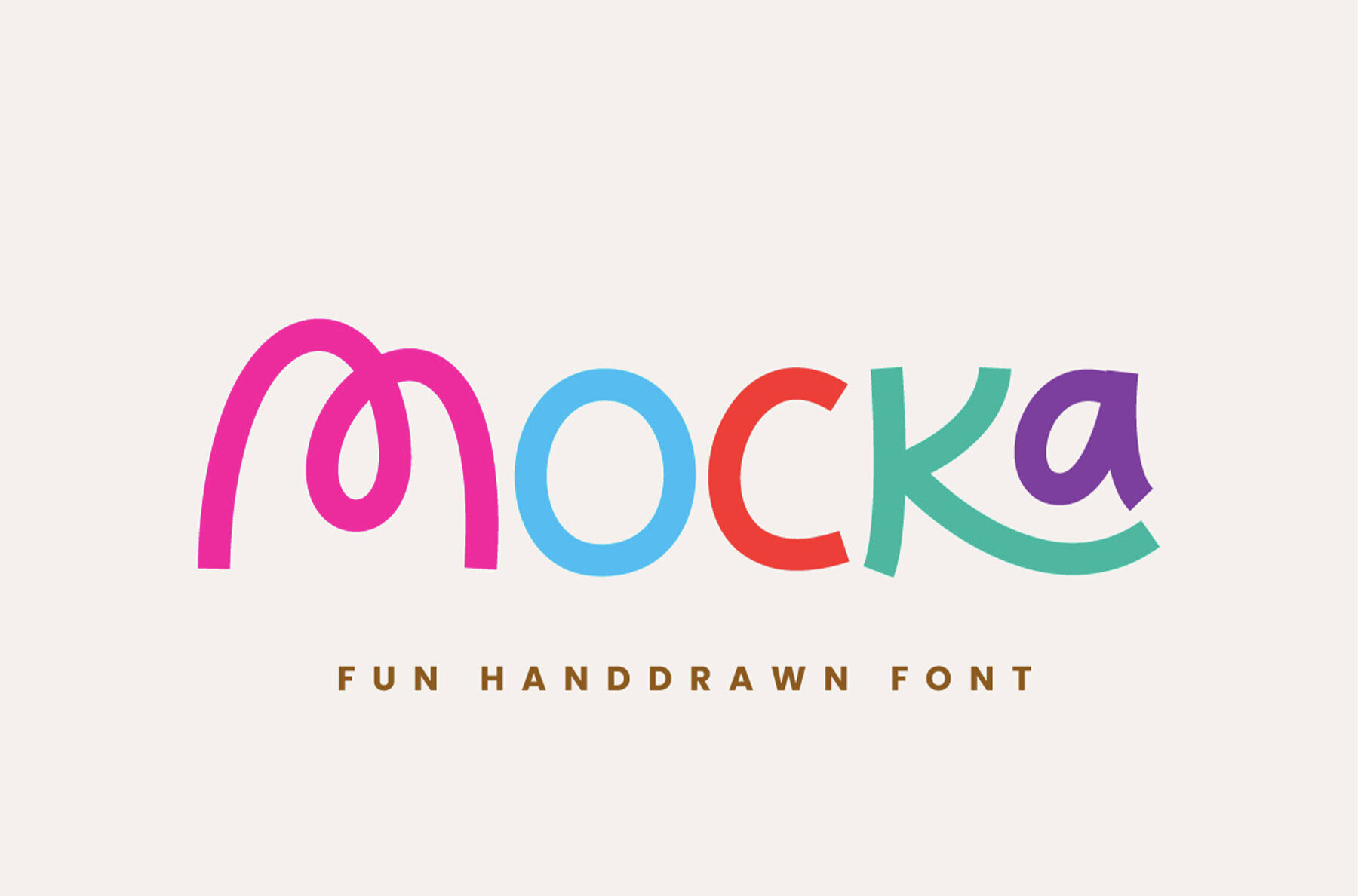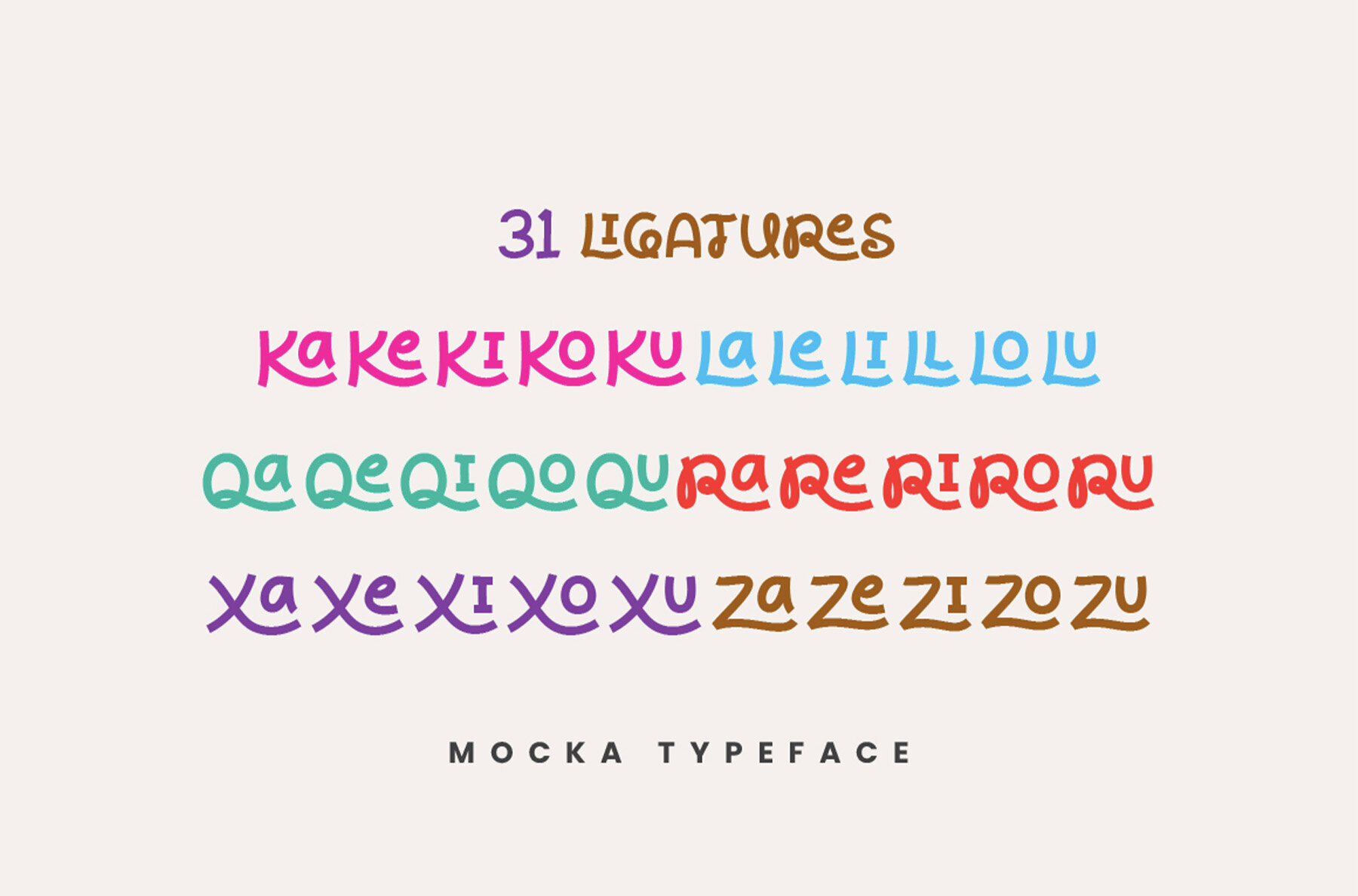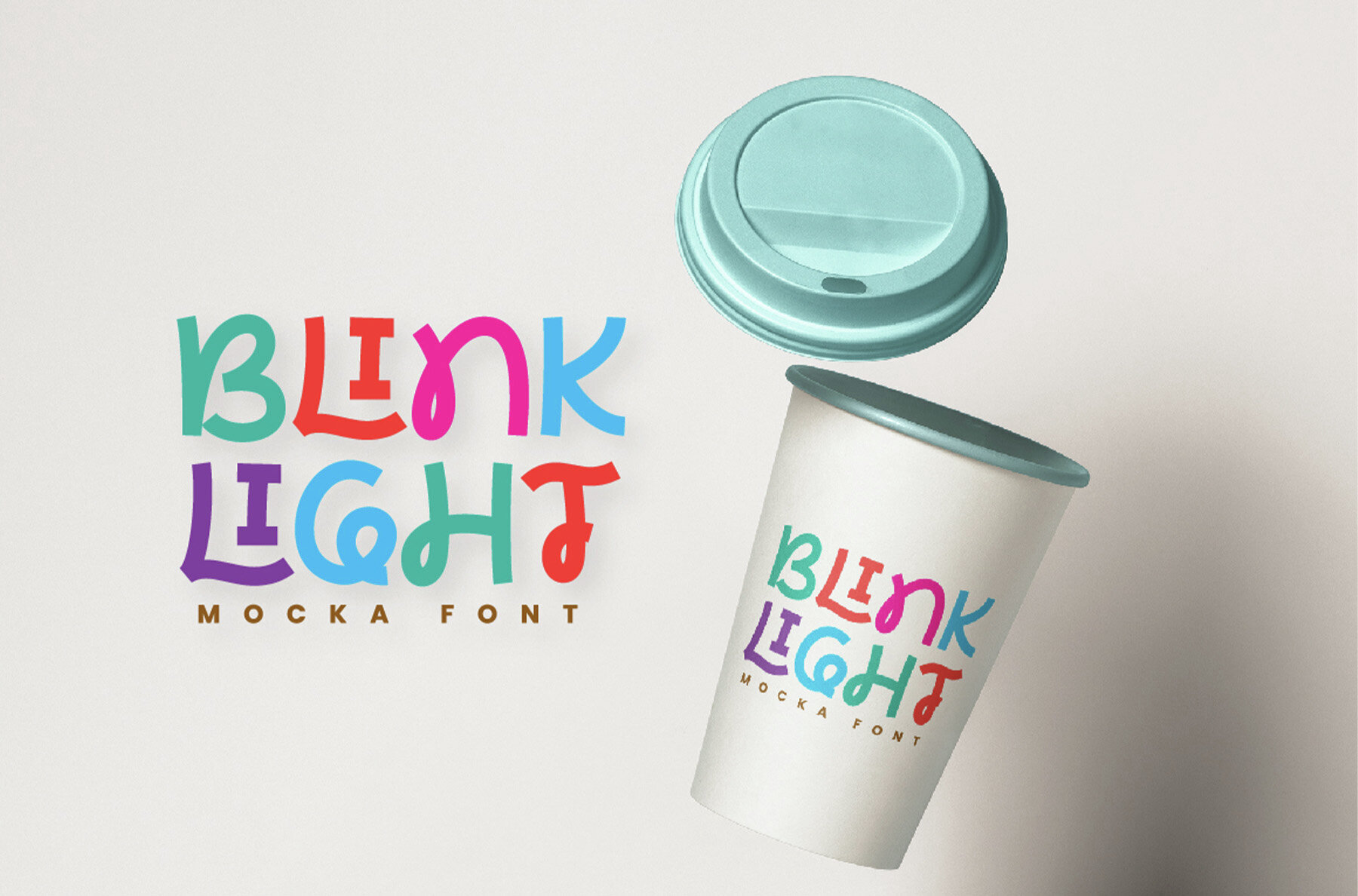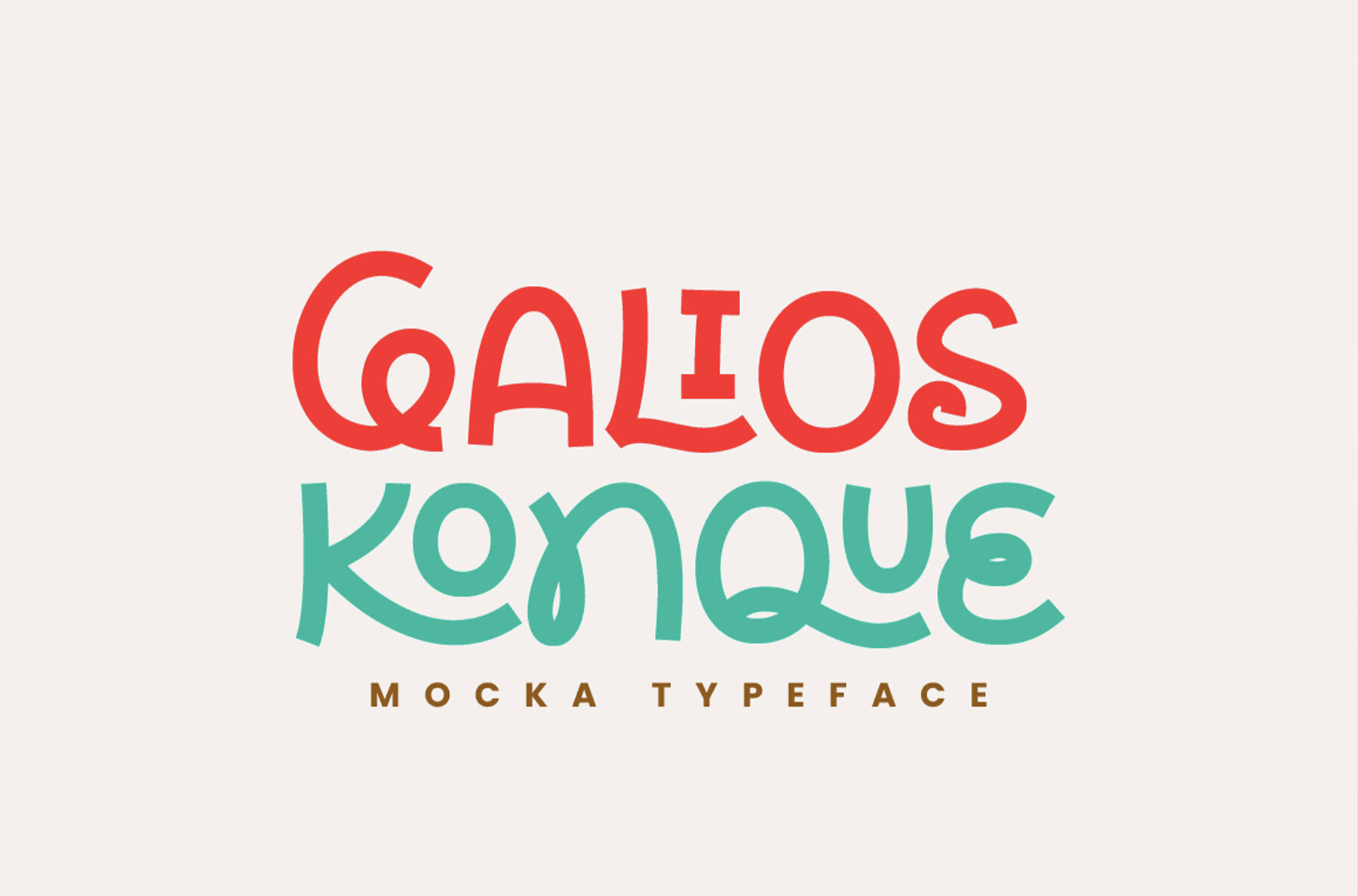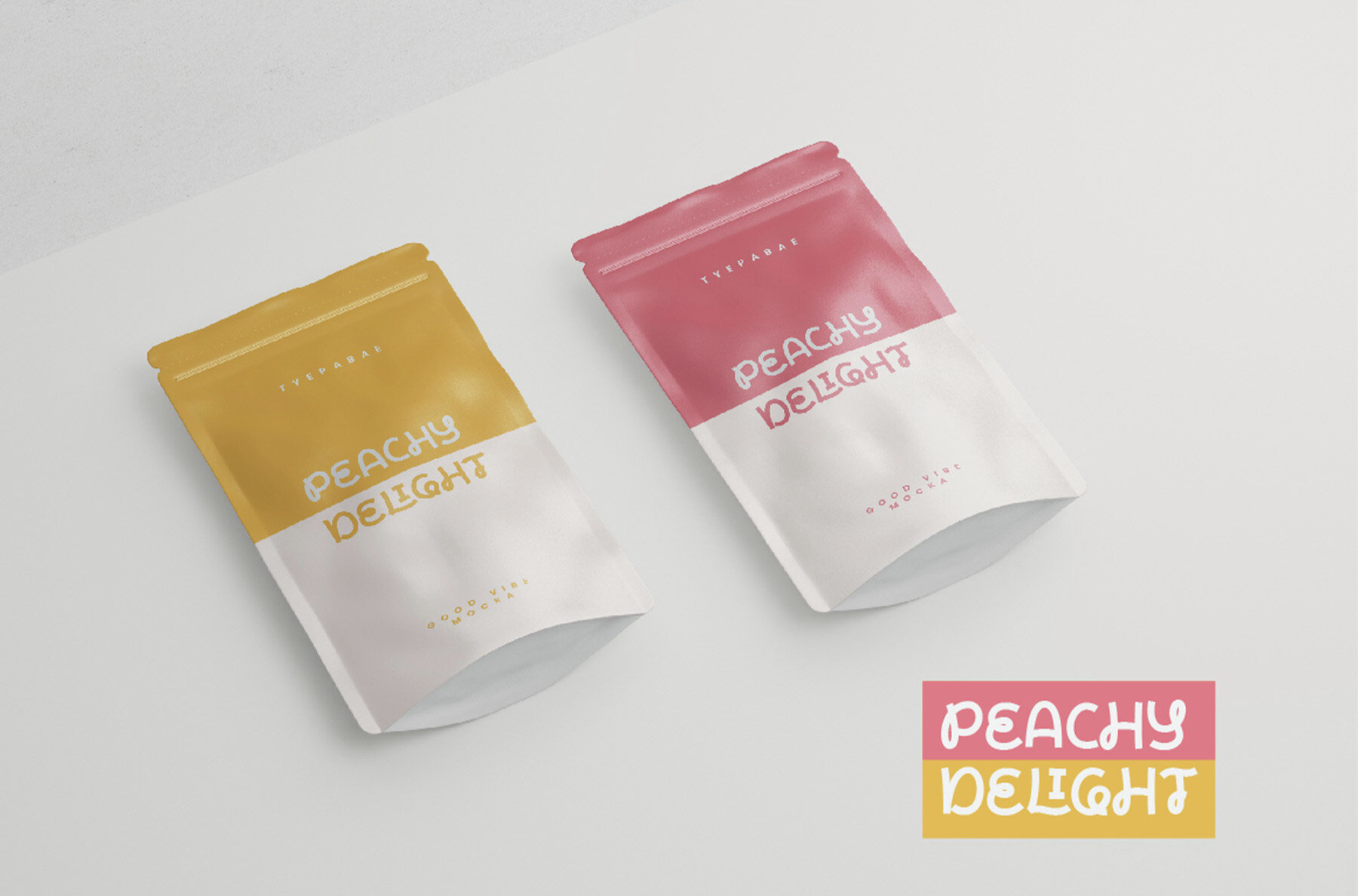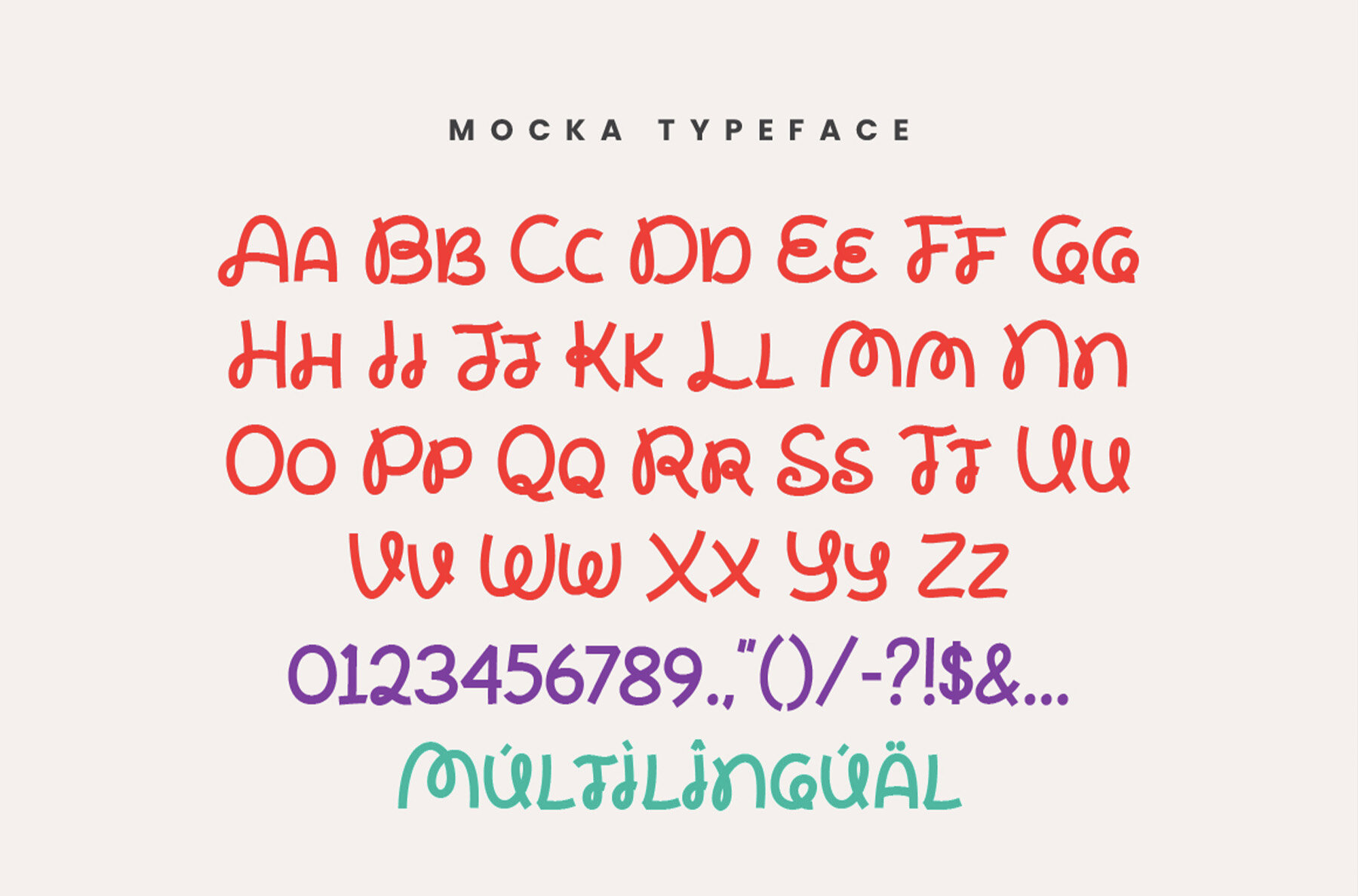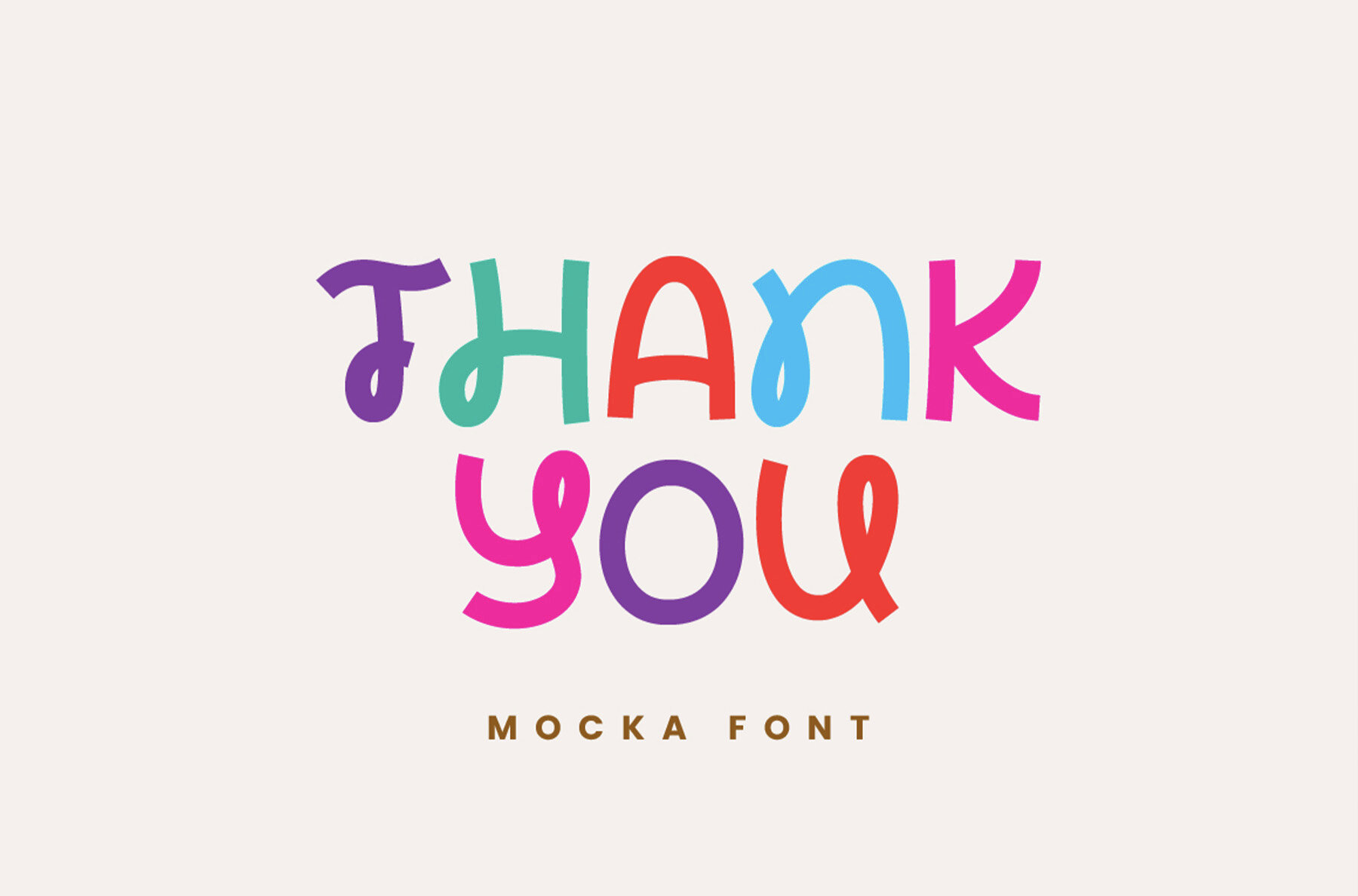
Mocka Font
Mocka
The Mocha font is a delightful hand-drawn typeface enriched with unique ligatures. Its playful essence adds a personal touch to any design, making it an ideal choice for invitations, branding, and custom stationery. These distinctive letterforms inject a handwritten, vibrant feel into your creative projects.Mocha: A Hand-Drawn Font With Character